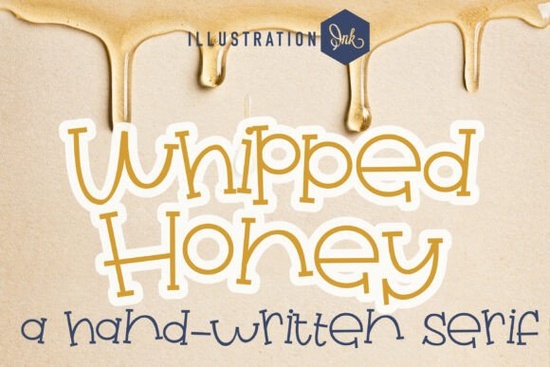
Looking for a font that brings calm, clean lines and a touch of handmade warmth to your designs? Whipped Honey Family Font delivers just that a lightweight, minimalist handwritten typeface with subtle charm. It’s perfect if you're creating labels for organic skincare, packaging for raw honey, or simple yet elegant cafe menus. The soft, monoline strokes and open letterforms feel natural without being overly decorative, making it ideal for brands that value simplicity and authenticity.
What makes Whipped Honey stand out?
Unlike many script fonts that lean too heavily into cursive flair, Whipped Honey keeps things balanced. Its fine, even strokes give it a delicate presence, while the wide square counters (the empty spaces inside letters like 'o' or 'a') add breathing room and readability especially important on small packaging or social media graphics.
The hand-drawn serifs are gentle and understated, adding just enough character to suggest craftsmanship without distracting from the overall clean look. This balance is what makes it work so well across different uses: from lifestyle branding to digital content.
Best uses for this font in real projects
- Organic skincare labels: Pair it with earth-toned backgrounds and minimalist icons for a boutique feel.
- Raw honey bottle labels: The name “Whipped Honey” fits naturally use it for product names or taglines.
- Cafe menus and drink cards: Great for seasonal drinks or brunch items where a soft, approachable tone matters.
- Social media graphics: Use it for quotes, announcements, or event promos that need to feel personal but polished.
You’ll find it especially useful when you want something that feels handmade but still professional. It doesn’t shout it quietly supports your message.
How does it compare to other similar fonts?
If you’ve explored fonts like Ice Cream Alley, you might notice a similar playful energy but Whipped Honey leans more toward minimalism. It’s less bouncy and more composed. Compared to Sunny, it has a quieter confidence. And while Mango Bloom adds tropical flair, Whipped Honey stays neutral and versatile.
For those who love script fonts but need something that works across multiple platforms and sizes, this one stands out. It’s readable at small sizes and maintains its personality on larger formats like posters or banners.
Where can I use Whipped Honey in my workflow?
Whether you’re designing for print-on-demand products, crafting custom stickers, or building brand kits, this font integrates smoothly. It pairs well with sans-serif fonts for contrast, or with other scripts when you want layered elegance.